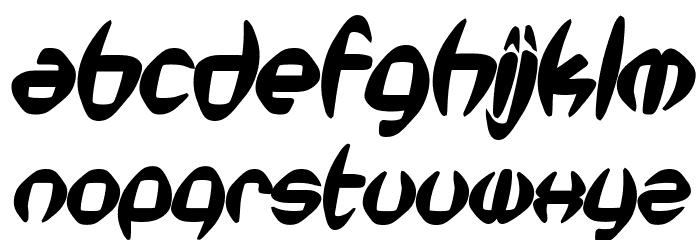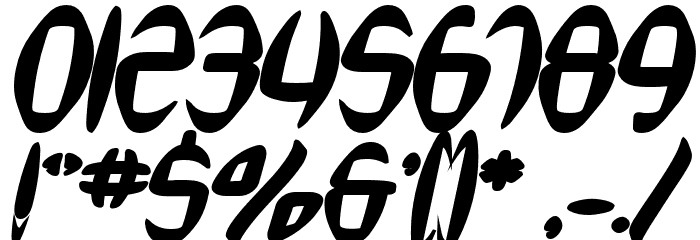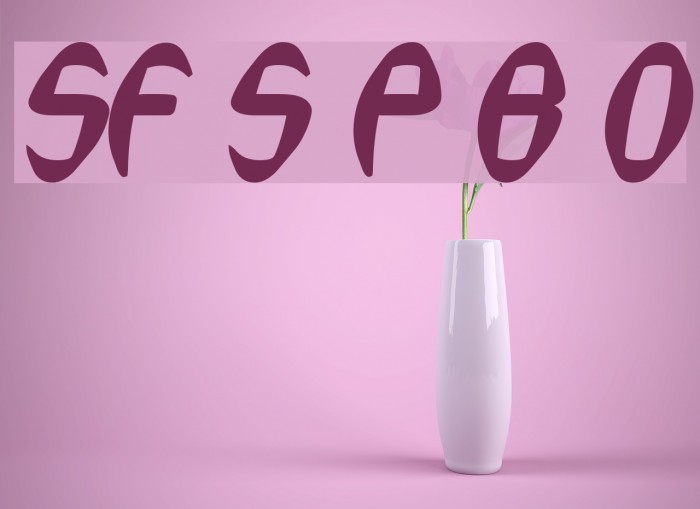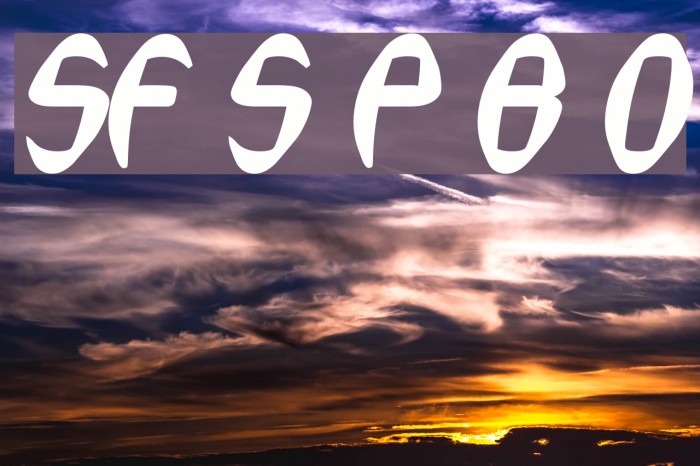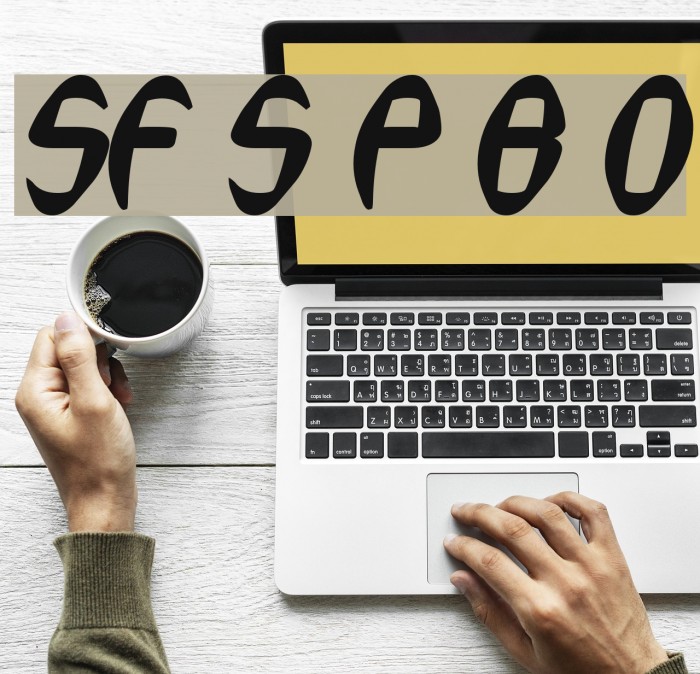
SF Synthonic Pop Bold Oblique Font
This font features a bold and oblique style with a futuristic and dynamic appearance. The characters are uniquely shaped with a forward-leaning slant, giving a sense of motion and energy. The strokes are thick and consistent, providing a strong visual impact. The uppercase and lowercase letters maintain a cohesive design, with rounded edges and smooth curves. Numbers and special characters follow the same stylistic approach, ensuring uniformity across the font. This font's distinctive style makes it suitable for projects that require a modern and edgy look.
A bold, oblique font with a futuristic and dynamic style.
- Proposed Projects: Ideal for sci-fi themed designs, video game titles, tech branding, and modern advertising.